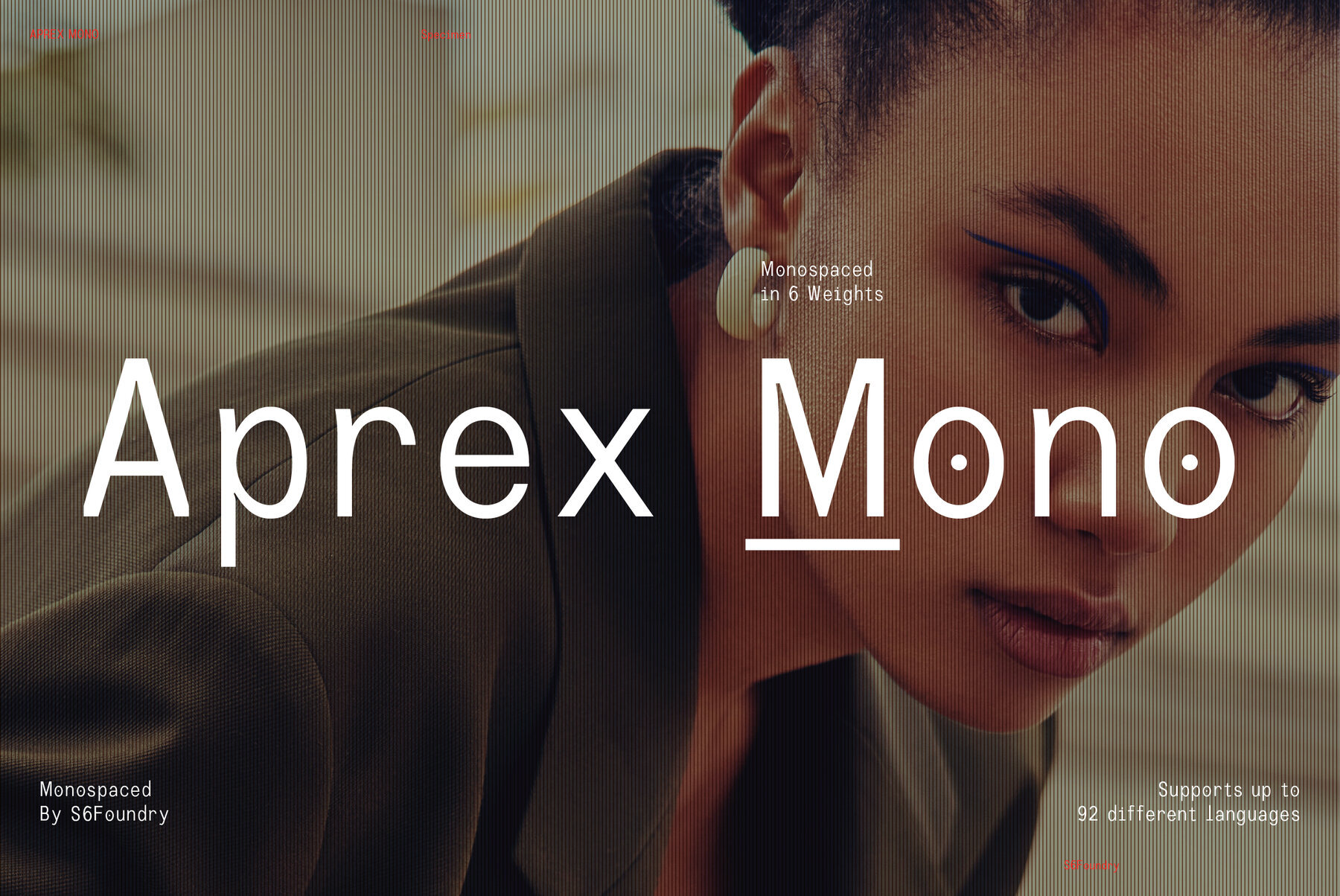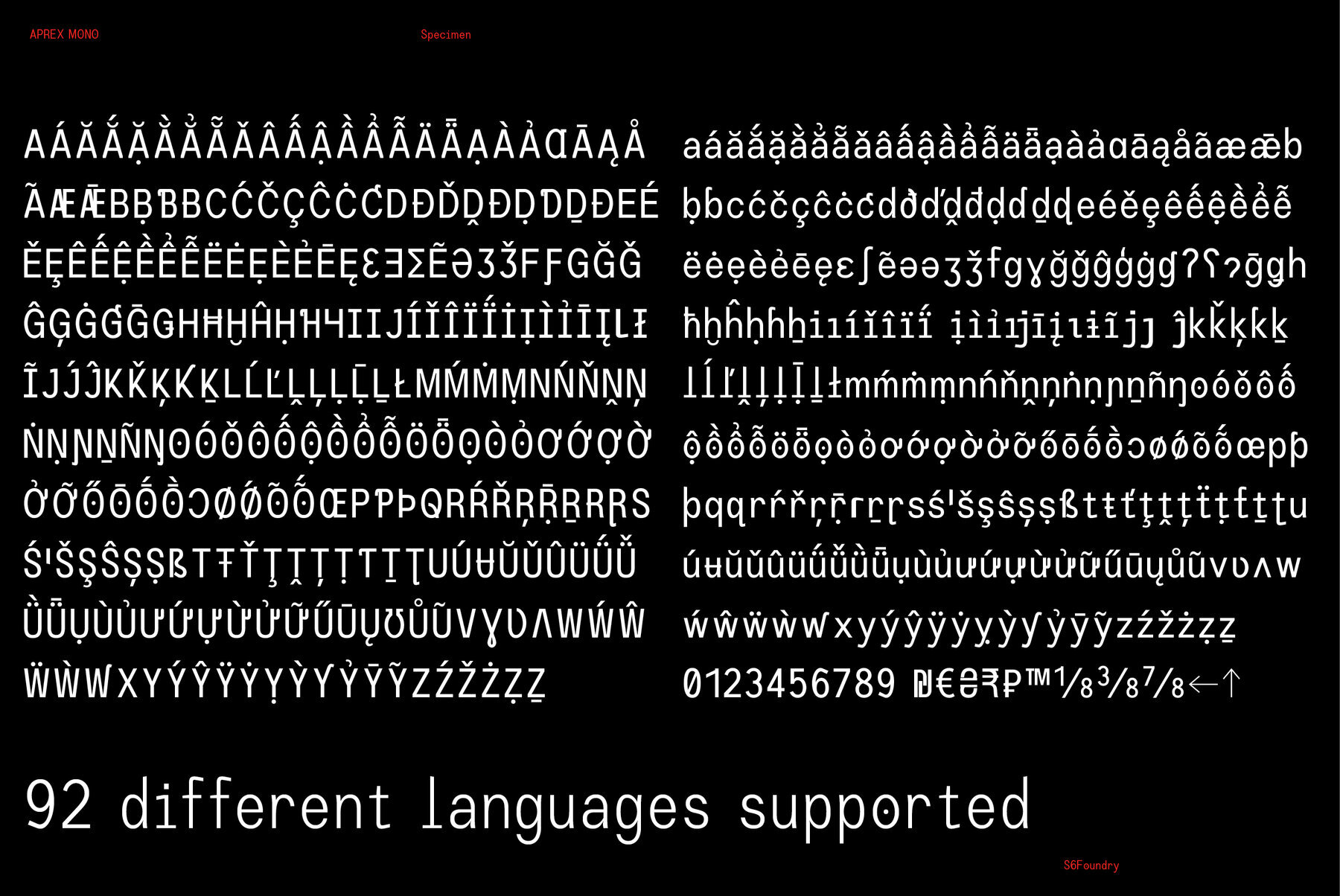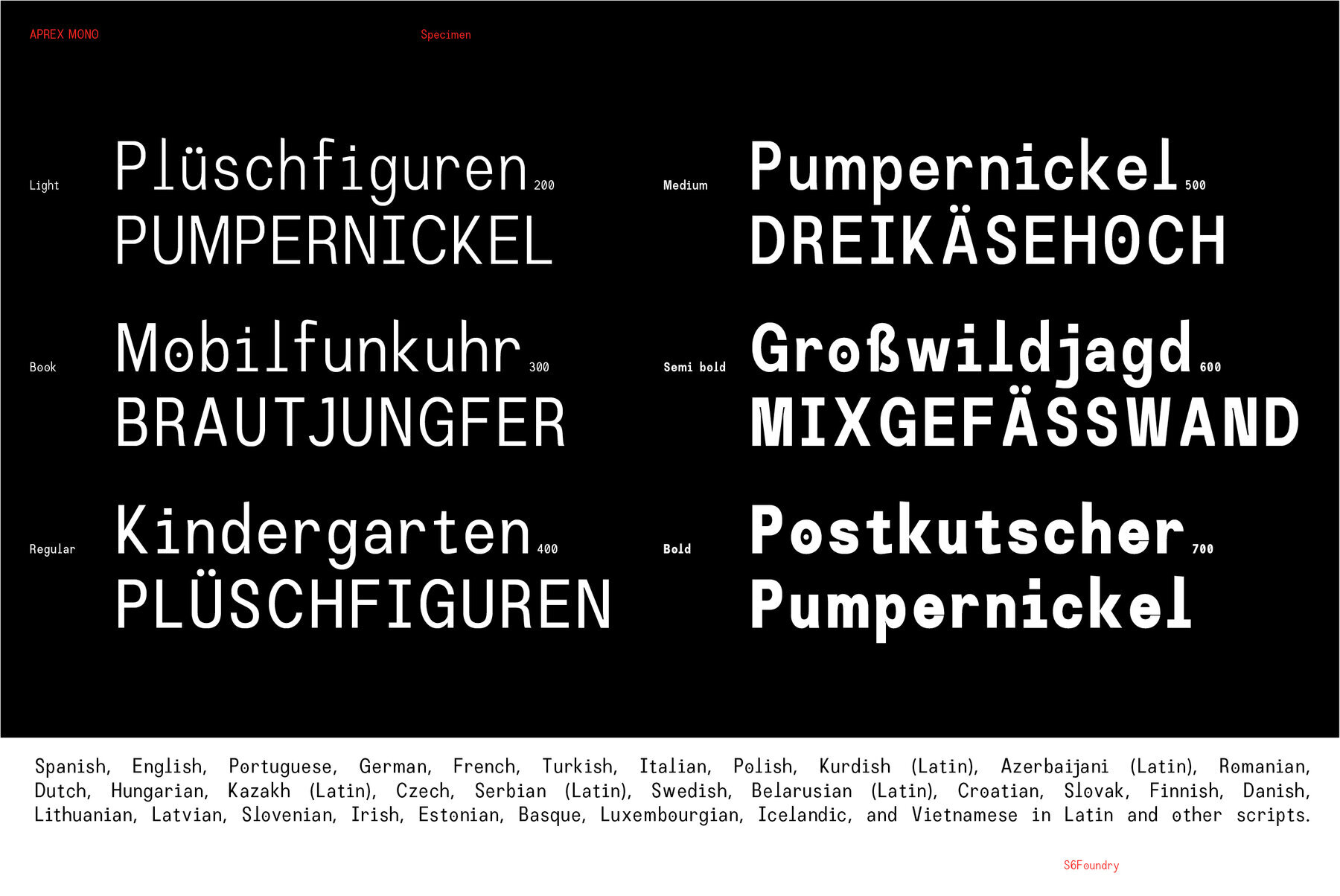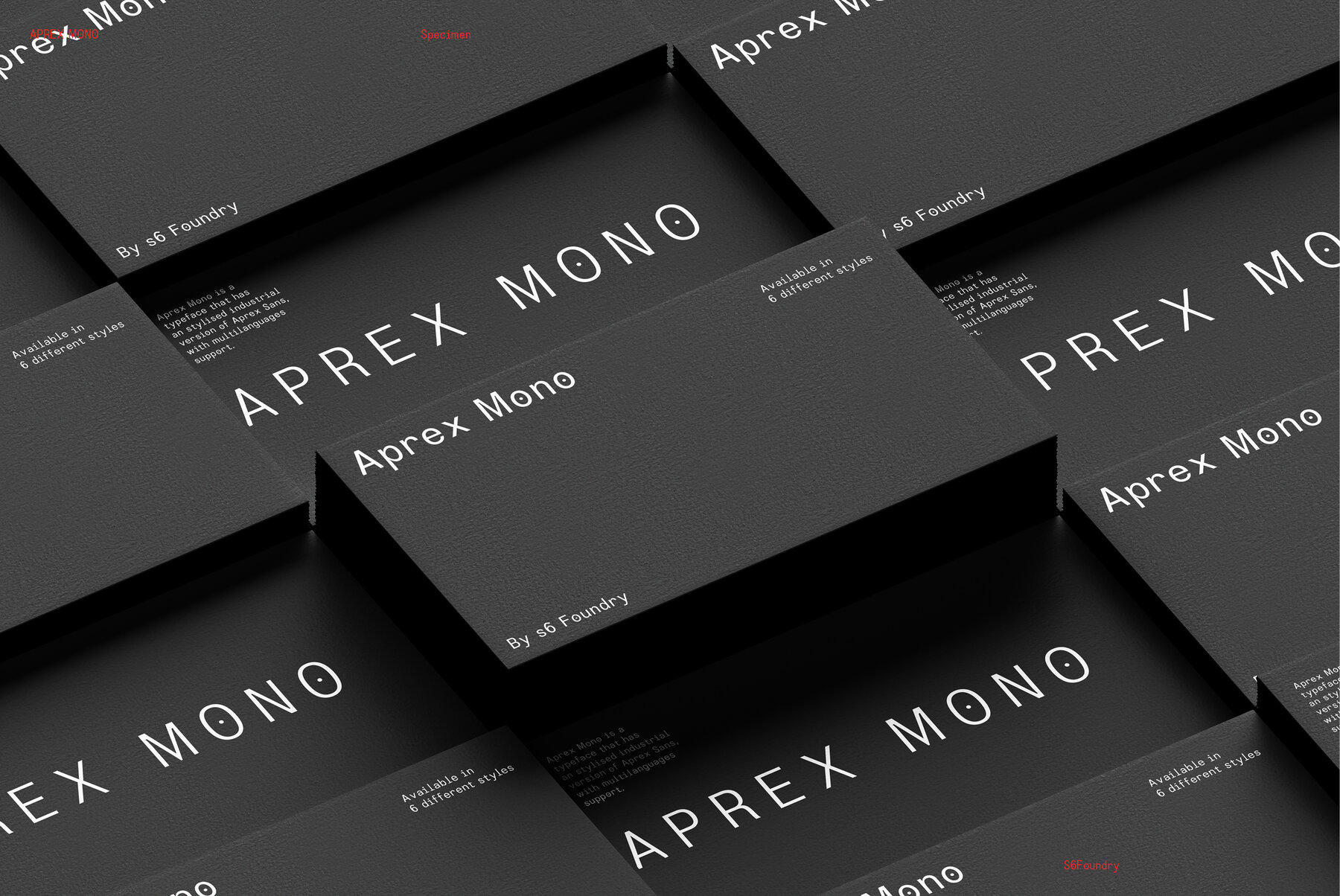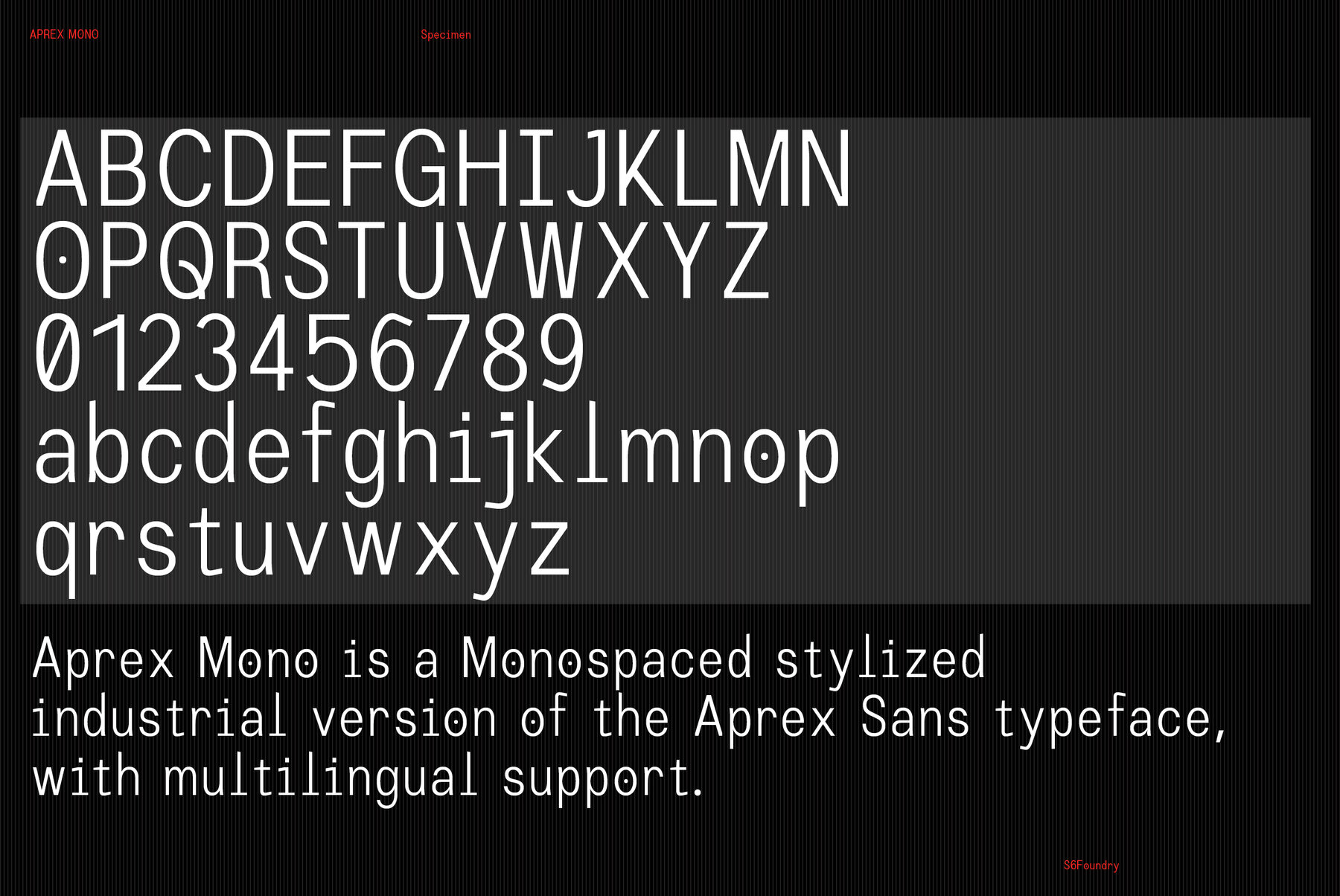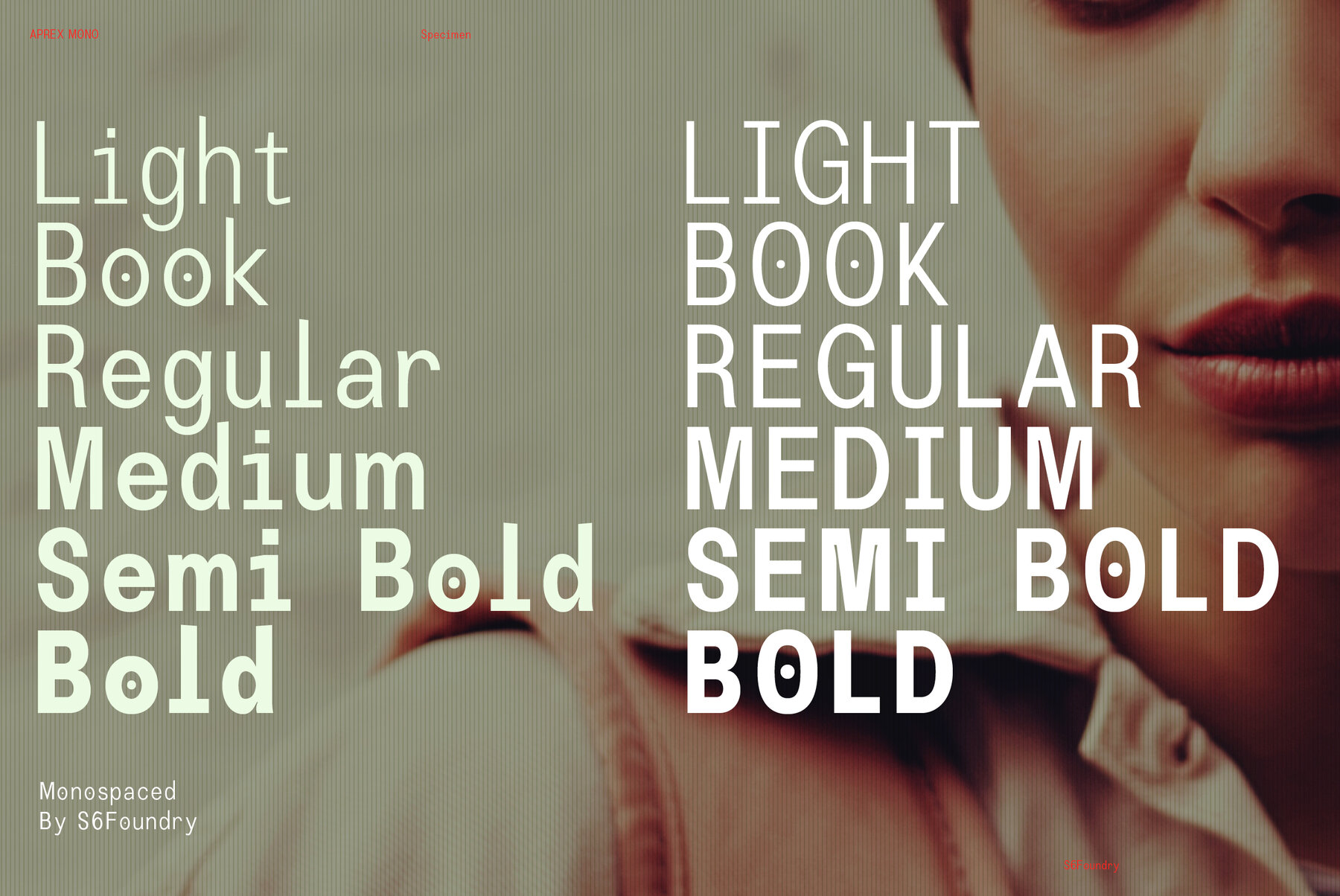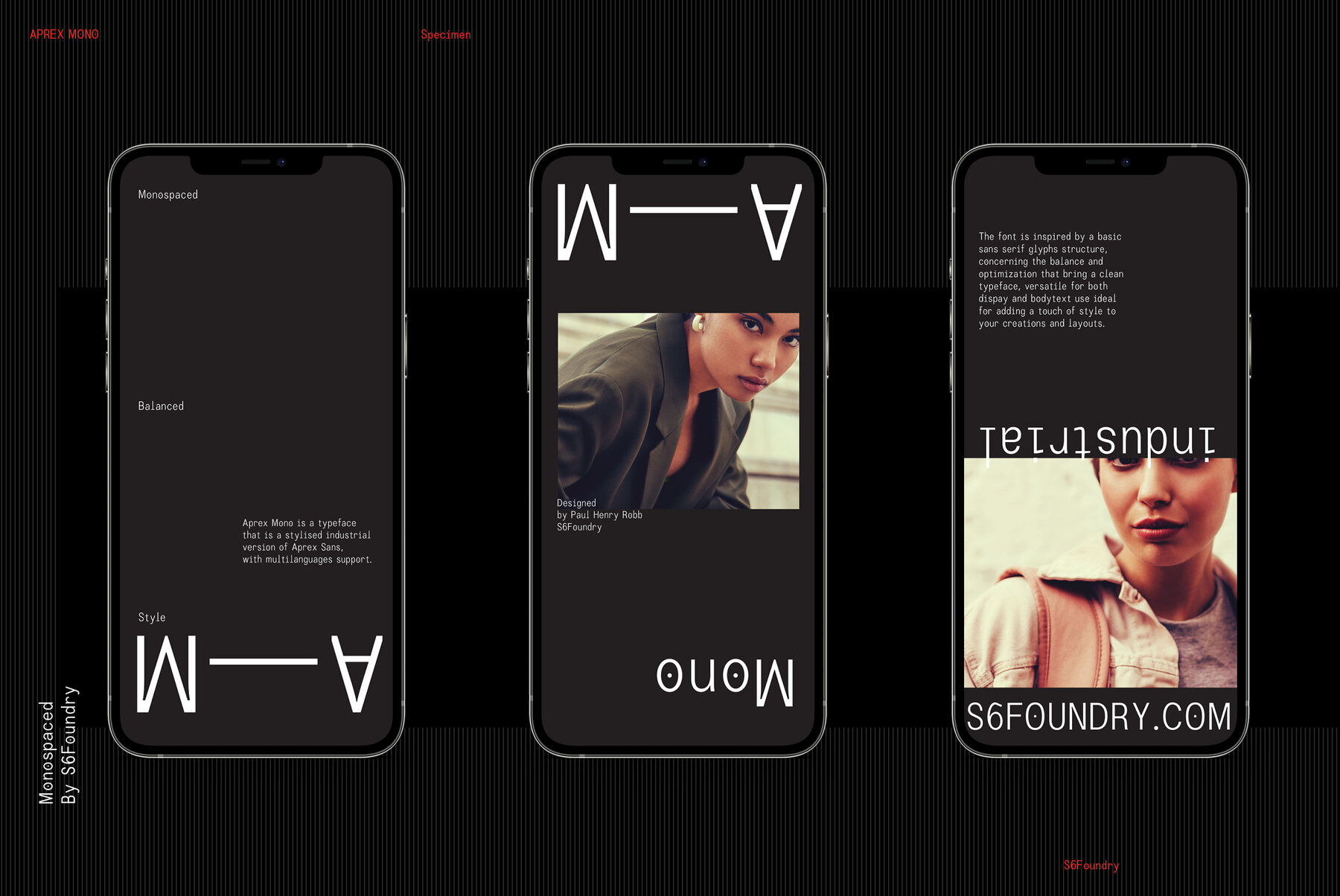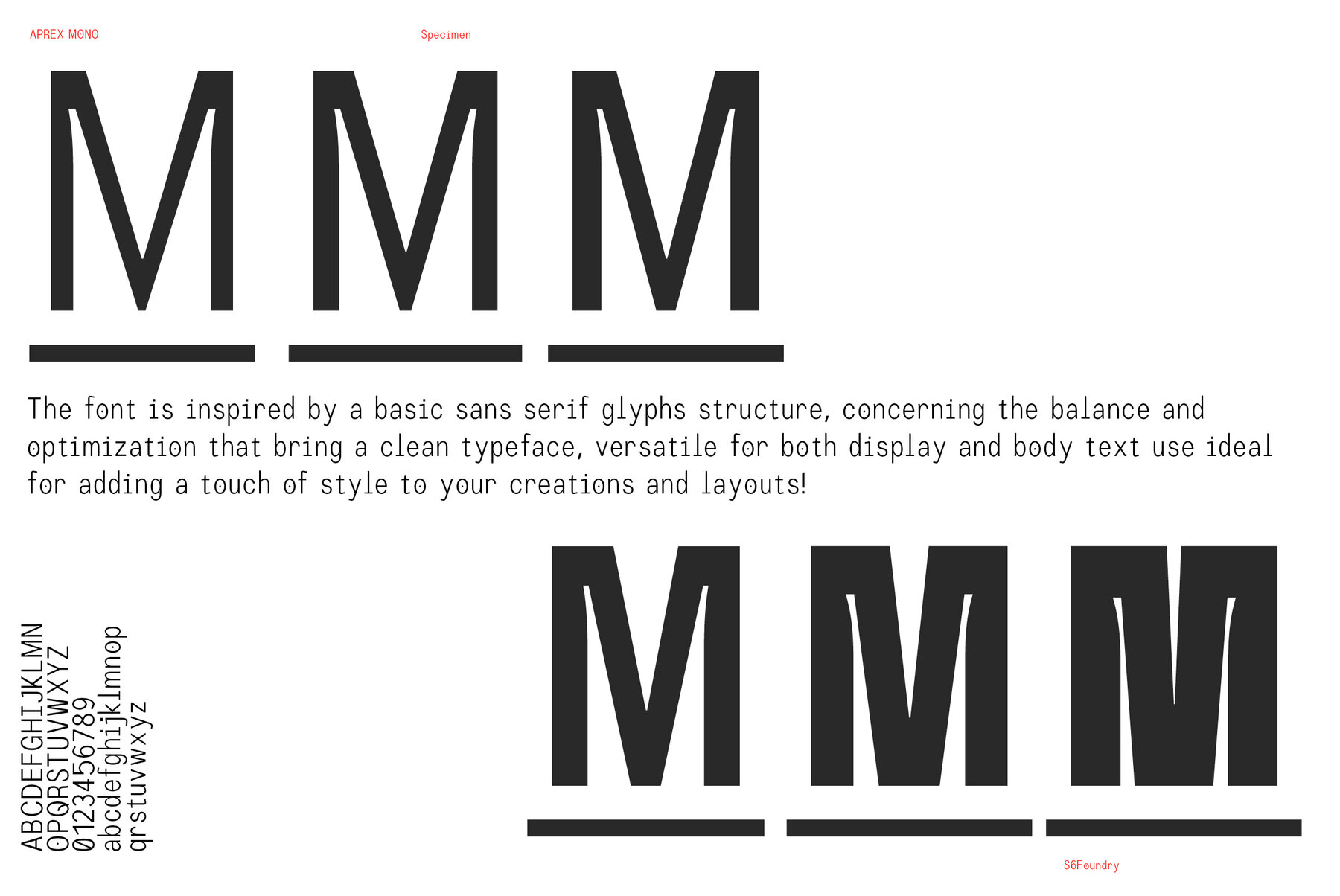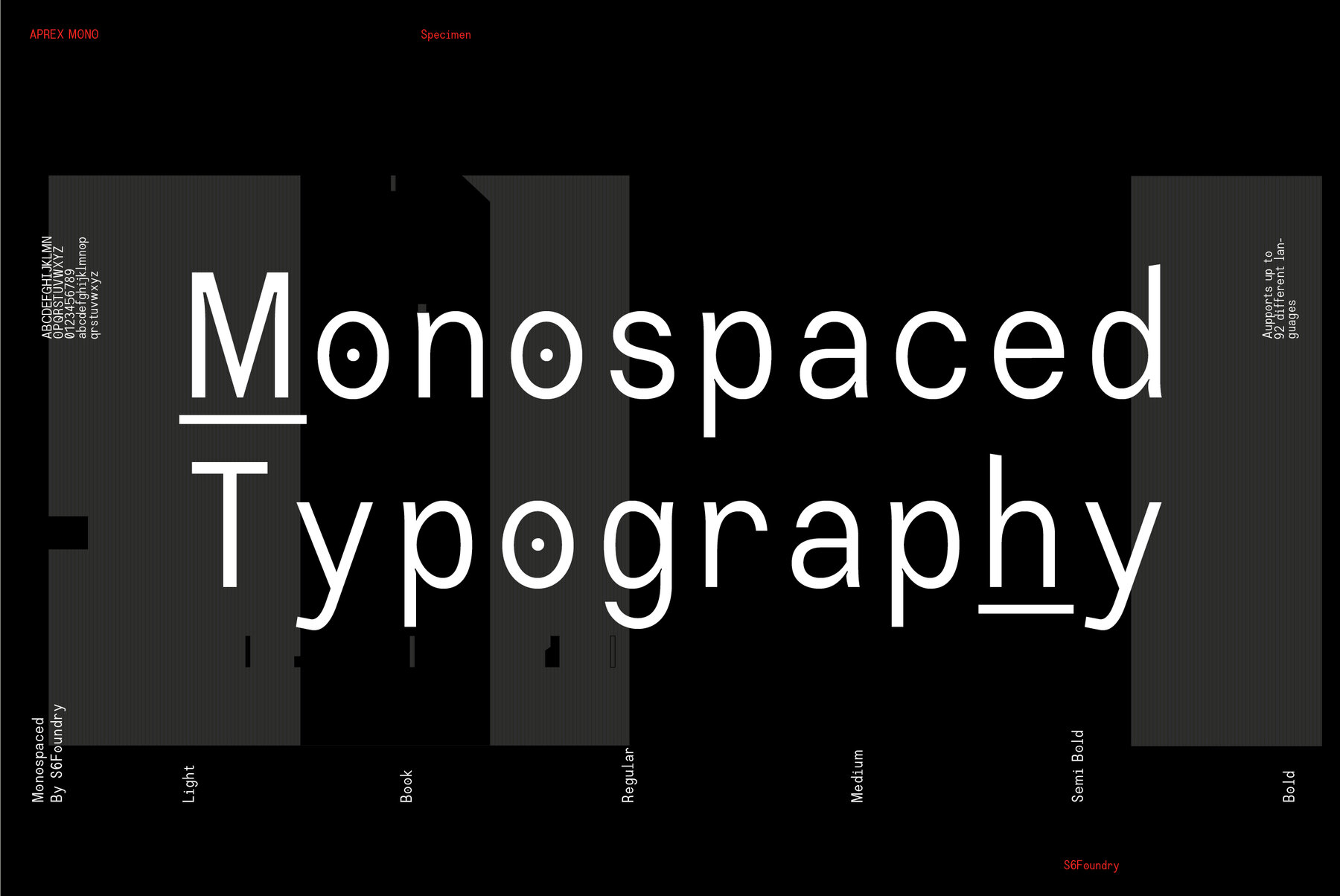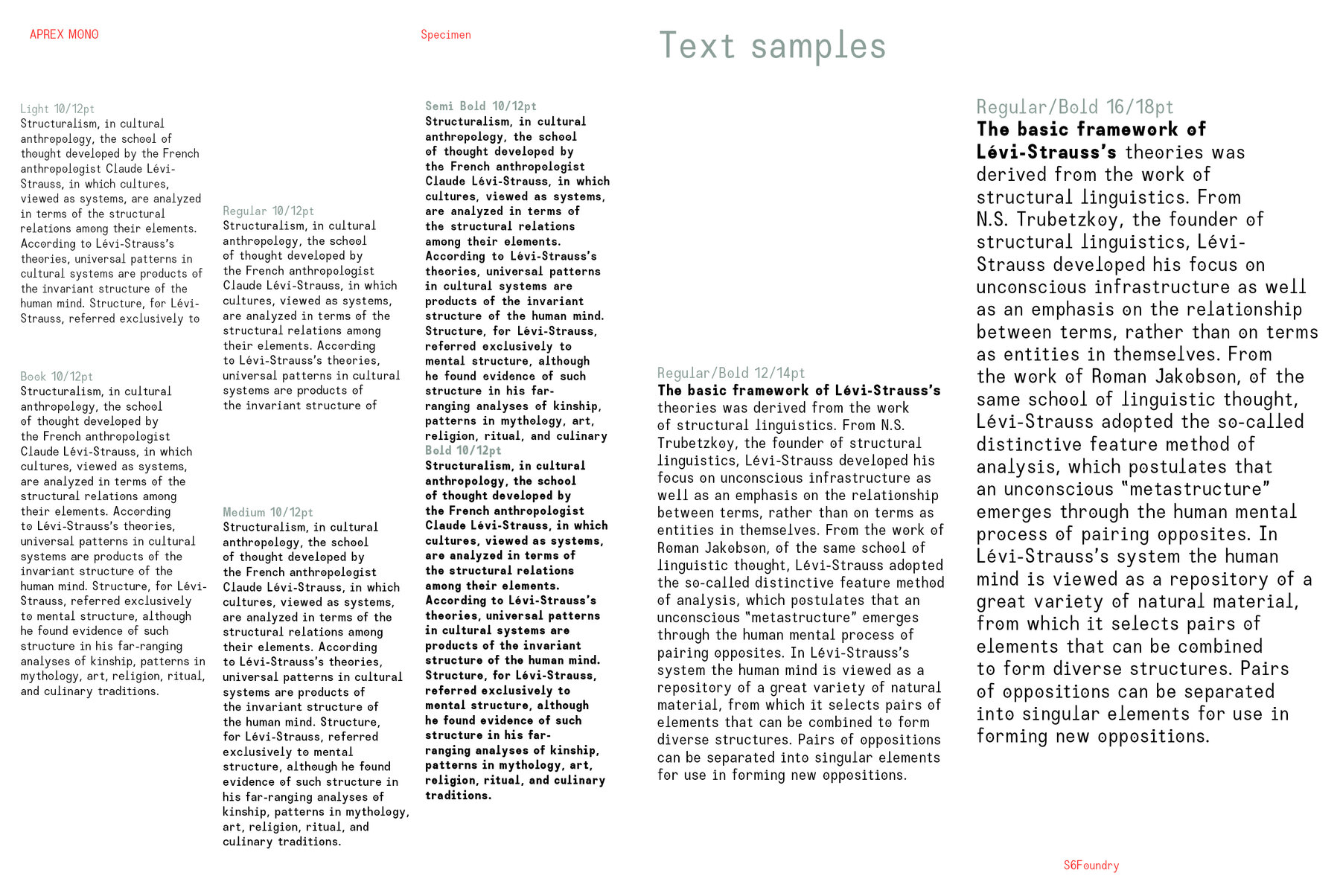
Aprex Mono Font
Aprex Mono is a Monospaced stylized industrial version of the Aprex Sans typeface, with multilingual support. The font is inspired by a basic sans serif glyphs structure, concerning the balance and optimization that bring a clean typeface, versatile for both display and body text use ideal for adding a touch of style to your creations and layouts!